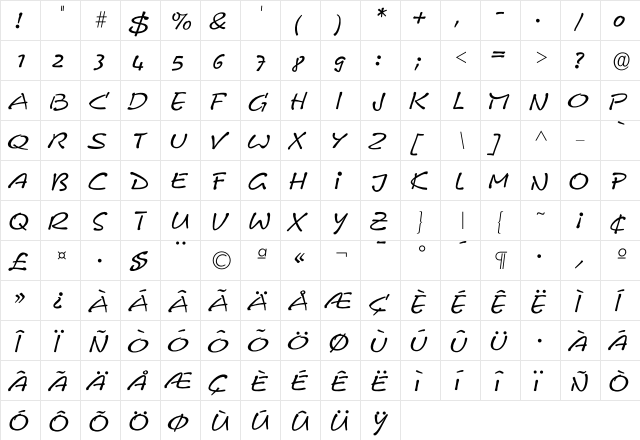
Ileobelix Regular
Design Context for Ileobelix Typeface
Ileobelix is a composed and adaptable typeface that performs quietly and consistently across a wide range of design contexts.